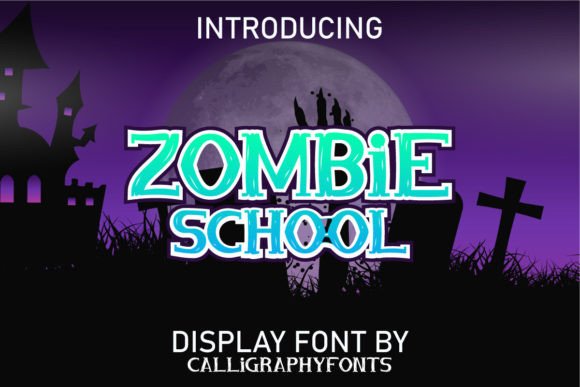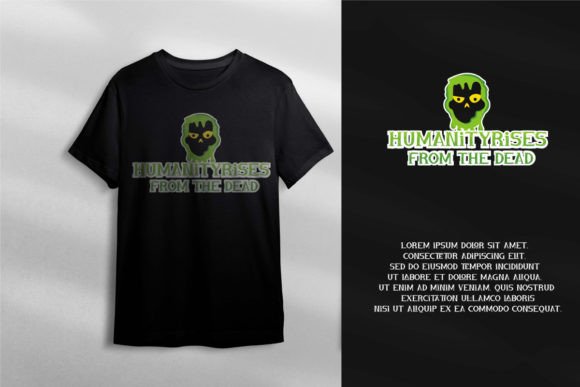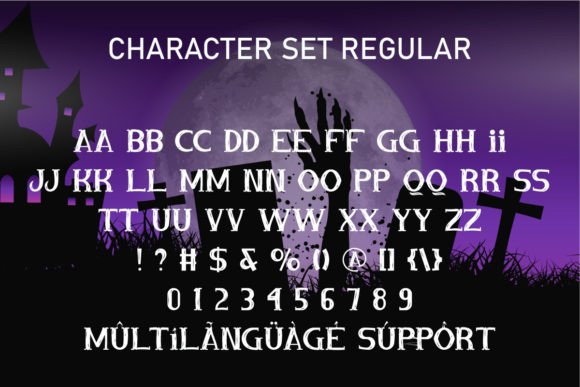
Zombie School
Zombie School: A Fun Horror-Themed Slab Serif Font
Zombie School is a fun horror-themed slab serif font inspired by zombie movies. This playful yet spooky typeface brings mysterious character to various creative applications, from Halloween events to rock band designs[2].
Key Features of Zombie School
• Horror Design: Offers zombie-inspired letterforms[2].
• Playful Style: Combines scary with funny elements[2].
• Versatile Appeal: Adapts well to numerous spooky contexts[2].
Best Uses for Zombie School
Thanks to its horror-themed characteristics, Zombie School works especially well for:
• Apparel design
• Carnival events
• Halloween parties
• Bold headlines
• Music projects
• Event posters
• Rock band branding[2]
When using Zombie School in your designs, keep these tips in mind:
• Try it for headlines to showcase its spooky style[2].
• Use its playful character for fun horror projects.
• Let its mysterious appeal enhance Halloween designs[2].
To sum up, Zombie School is an excellent choice for designers seeking a fun horror-themed slab serif font. Its versatility makes it perfect for various spooky projects. Whether you’re creating Halloween materials, designing apparel, or developing rock band branding, Zombie School offers the perfect blend of scary and funny[2].
Furthermore, Zombie School’s distinctive design allows it to shine in contexts where both horror and humor are key. From carnival events to signage, this font can elevate your projects with its mysterious style. Also, its PUA encoding ensures easy access to all special characters across various design applications[2].
In conclusion, Zombie School truly captures the essence of playful horror in slab serif typography. Its ability to work across different applications shows how well it can serve various creative needs. Therefore, for those wanting to add a touch of spooky fun to their work, Zombie School can enhance any design with its distinctive style. Ultimately, it’s perfect for designers aiming to make a scary yet playful impact across creative projects.